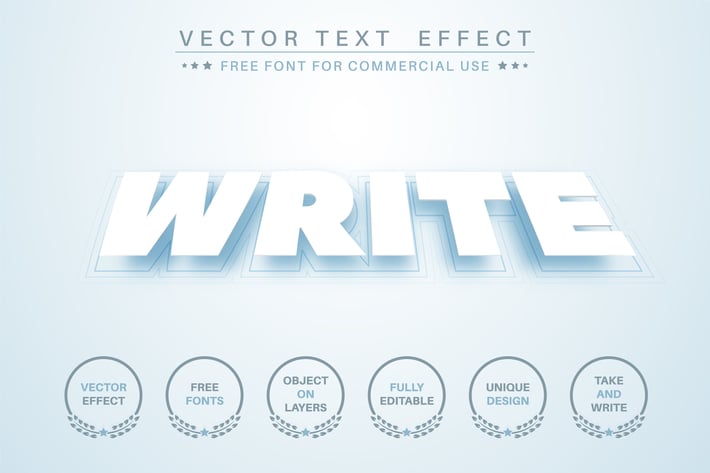
Levitation pape - editable text effect, font style
Hello! I'm happy to introduce my new text effect "Levitation paper". Just write your word and the effect will apply! Be as creative as you like to be in expressing yourself using this unique “Levitation paper”. Effect is perfect for any project that needs a unique handy touch whatever else your imagination leads you to!